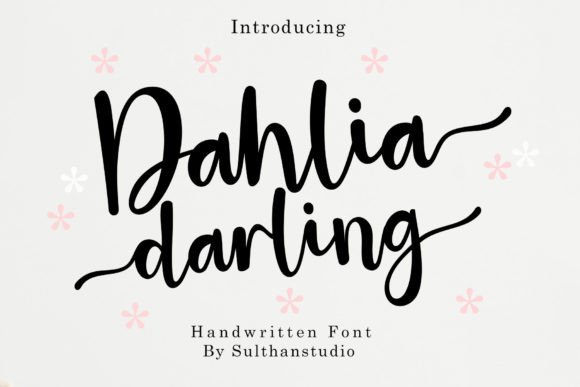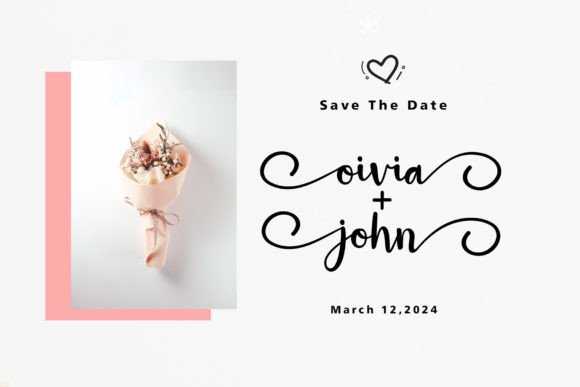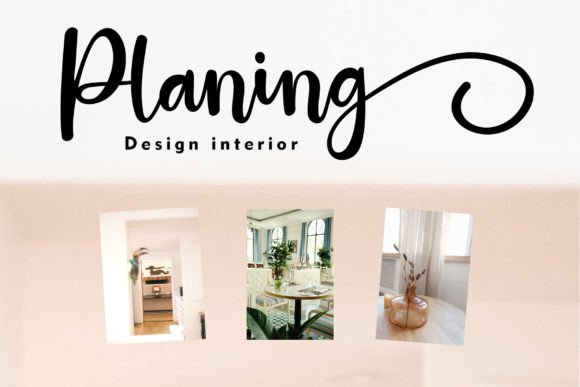
Introduction to Dahlia Darling Font
Do you remember the moment when a single design element sparked a wave of creativity in your mind? For designers, it’s that ‘aha’ moment that sets our imagination on fire. For me, it was stumbling upon the charming Dahlia Darling Font. Its whimsical, handwritten style instantly captured my attention, and I knew I had to dive deeper. This font has a way of elevating any design project with its natural touch and effortless charm.
As a valuable resource for designers, the Dahlia Darling Font offers a high-quality, free download option that’s perfect for creative projects. Whether you’re working on a branding project, designing a t-shirt, or crafting a magazine layout, this font is sure to bring a touch of elegance and sophistication to your design. With its transparent background, you can easily place it over any image or background, making it a versatile choice for any design need.
Key Features of Dahlia Darling Font
- High-quality, hand-drawn design ideal for creative projects requiring a unique touch.
- Includes a transparent background, making it easy to layer over various design elements.
- Features a large character set, including uppercase and lowercase letters, numerals, and punctuation marks.
- Perfect for adding a whimsical, feminine touch to wedding invitations, greeting cards, or other design projects.
Honest Review: Dahlia Darling Font
I recently had the chance to work with the Dahlia Darling Font, and I must say it’s a lovely addition to any design resource collection. The first thing that caught my attention was its elegant and whimsical feel, perfect for a creative project that requires a touch of sophistication.
- ✨ High-quality typography with a wide range of font styles and sizes
- ✨ Beautiful, hand-drawn illustrations that add a personal touch
However, I did encounter a few limitations while working with the font:
- ⚠️ The transparent background option can sometimes result in a slightly blurry or pixelated effect
- ⚠️ The font may not be suitable for very large or small text sizes, as it can become distorted
Overall, I’m impressed with the Dahlia Darling Font. It’s a high-quality design resource that’s perfect for designers looking to add a touch of elegance and whimsy to their creative projects. While it may have a few limitations, the benefits far outweigh the drawbacks.
How to Use Dahlia Darling Font
The Dahlia Darling Font is a high-quality, free download design resource perfect for creative projects. Its transparent background makes it ideal for use on various backgrounds and images.
Tips for Getting the Most Out of Dahlia Darling Font
1. Experiment with different font sizes and styles to achieve the desired effect.
2. Use the font in combination with other design elements to create a visually appealing design.
1. Wedding invitations and stationery.
2. Blog posts and articles.
3. Social media graphics and ads.
Alternatives to Dahlia Darling Font
The Great Vibes Font is a high-quality, elegant script font perfect for creative projects that require a touch of sophistication. It’s ideal for use in wedding invitations, greeting cards, and other design elements that need a delicate, handwritten feel. Great Vibes Font is a great alternative to Dahlia Darling Font for designers who need a more refined, sophisticated look.
The Carolyna Pro Font is a modern, high-end script font designed for designers who need a high-quality, versatile font for their projects. It’s suitable for use in various design elements, such as logos, branding materials, and advertising campaigns. Carolyna Pro Font is a great choice for designers who want a more modern, edgy look compared to Dahlia Darling Font.
The Alex Brush Font is a beautiful, elegant script font that’s perfect for designers who need a high-quality, handwritten feel for their projects. It’s ideal for use in invitations, greeting cards, and other design elements that require a touch of sophistication. Alex Brush Font is a great alternative to Dahlia Darling Font for designers who want a more refined, classic look.
Can I use the Dahlia Darling Font with a transparent background?
Yes, the Dahlia Darling Font supports transparent backgrounds. This means you can use it with a transparent PNG or GIF file, allowing you to create stunning designs with a seamless background.
Is the Dahlia Darling Font a high-quality design resource?
Yes, the Dahlia Darling Font is a high-quality design resource, carefully crafted to provide a unique and elegant touch to your creative projects. Its high-quality design makes it an excellent choice for designers looking to elevate their work.